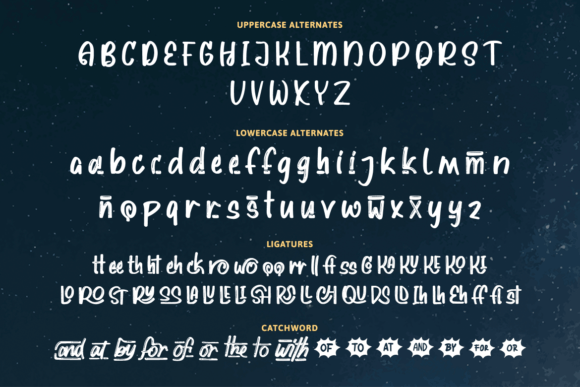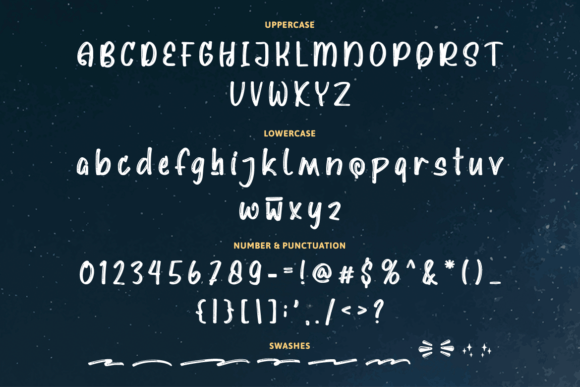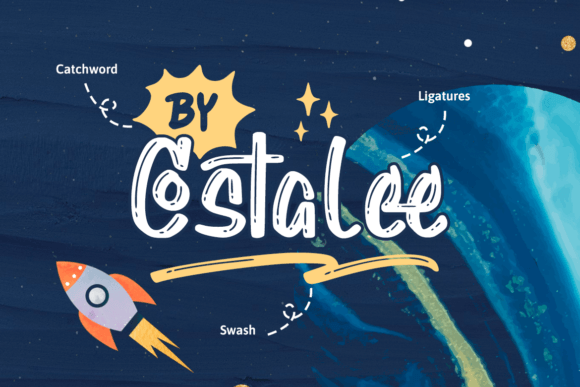
Introduction to Foxykids Font
A playful typeface that can bring up your creative side, that’s what Foxykids is.
This typeface comes in two looks; one is with a brushed look, and the other one is without Foxykids is perfect for branding projects, logos, wedding designs, social media posts, advertisements, product packaging, product designs, label, photography, watermark, invitation, stationery, and any projects that need a joyful touch.
Key Features of Foxykids Font
Why Choose Foxykids Font?
Foxykids Font offers exceptional quality and versatility, making it a valuable addition to your design toolkit. Whether you’re creating for personal projects or commercial use, Foxykids Font delivers professional results.